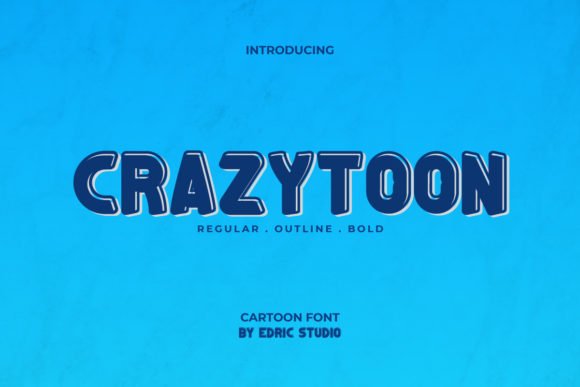
Get Ready to Add Some Whimsy to Your Designs!
Have you ever stared at a blank page, searching for the perfect font to bring your creative vision to life? We’ve all been there – the cursor blinks, our minds go blank, and suddenly, a burst of inspiration strikes. That’s exactly what happened to us when we discovered the Crazytoon Font. This hilarious, cartoon-like display font is a game-changer for designers looking to add a dash of modern whimsy to their projects.
Perfect for everything from logo branding to product packaging, the Crazytoon Font is a valuable addition to any designer’s toolkit. Its unique style and versatility make it an ideal choice for a wide range of industries, from event planning to retail and beyond. Whether you’re a seasoned pro or just starting out, this font is sure to bring a smile to your face and a touch of creativity to your designs.
Crazytoon Font Key Features
- Font Style: A playful, cartoon-inspired font designed for creating whimsical and humorous text.
- Unique Characteristics: Features exaggerated letterforms, irregular shapes, and playful flourishes, making it perfect for adding a touch of humor and whimsy to text.
Crazytoon Font Review
Crazytoon Font is a unique and quirky font that I’d be happy to share my thoughts on. Here’s the breakdown:
- Crazytoon Font has a playful and whimsical vibe that’s perfect for projects that need a bit of fun and personality.
- The font’s bold lines and bright colors make it great for headings and titles that need to grab attention.
- The font’s high x-height makes it highly legible, even at smaller sizes.
- Crazytoon Font may not be suitable for projects that require a more professional or formal tone.
- The font’s quirky design may not be to everyone’s taste, and some users may find it too loud or overwhelming.
- The font’s limited character set may make it difficult to use for longer blocks of text.
Overall, I think Crazytoon Font is a great choice for projects that need a bit of flair and personality. While it may not be suitable for every project, it’s a great option for designers who want to add a bit of fun and whimsy to their designs.
Tip: Use the Crazytoon font to add a playful touch to your designs, especially for children’s products or cartoon-inspired graphics.
Tip: Use the Crazytoon font to add a whimsical touch to your illustrations or graphics, especially for cartoon-inspired artwork.
Tip: Use the Crazytoon font to add a fun touch to your presentations or documents, especially for children’s educational materials or cartoon-inspired content.
The Crazytoon font is perfect for:
- Children’s products and educational materials.
- Cartoon-inspired graphics and illustrations.
- Playful and whimsical designs.